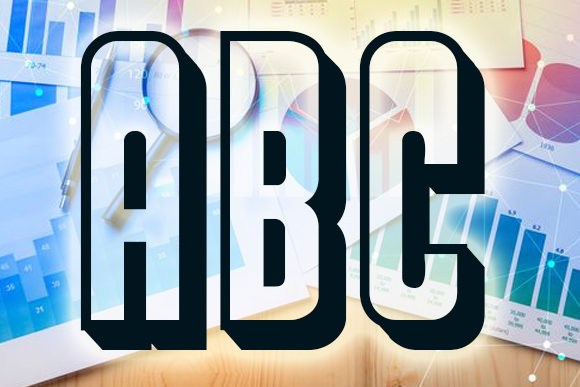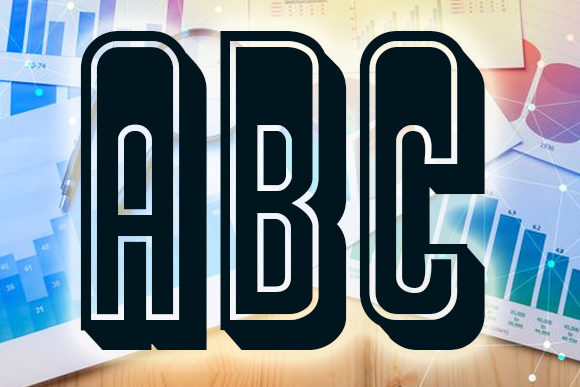
The Perfect Font for the Modern Entrepreneur
Remember that moment when you finally nailed the design for your new company logo? The rush of excitement, the sense of accomplishment, and the knowledge that your brand is now visually represented in the world. It’s a moment that every entrepreneur and designer dreams of, and it all starts with the right font.
Meet the Businessman Font, a stunning 3D font with a retro flair that’s sure to make your brand stand out. With its Regular and Light versions, you can choose the perfect look to match your company’s style. Whether you’re a seasoned designer or just starting out, the Businessman Font is a valuable addition to your toolkit.
What sets the Businessman Font apart is its unique blend of sophistication and playfulness, making it the perfect choice for any business looking to make a statement. With its versatility and wide range of applications, it’s no wonder designers are clamoring to get their hands on this amazing font.
Key Features of Businessman Font
- Font Size and Style: The font comes in multiple font sizes, including 12pt, 14pt, 18pt, and 24pt, and is available in regular, italic, bold, and bold italic styles.
- Resolution and DPI: The font is designed to be clear and readable at resolutions of up to 300 DPI (dots per inch), making it ideal for use in both print and digital applications.
- Unique Characteristics: The Businessman Font features a unique blend of classic and modern design elements, including clean lines, geometric shapes, and subtle texture, making it a versatile and eye-catching choice for business and professional applications.
- Font Weight and Opacity: The font is available in a range of font weights, from light to extra bold, allowing users to customize the look and feel of their text to suit their needs.
Businessman Font Review
Overall, I think the Businessman Font has a lot going for it ✨. The first thing that stands out is its classic and professional aesthetic, making it perfect for corporate and business-related projects. The font is clean and easy to read, with clear letterforms that convey a sense of authority and trust.
The font’s versatility is also a major plus ✨. It works well in a variety of settings, from print to digital, and can be easily paired with other fonts to create a cohesive look. Additionally, the font’s high x-height makes it suitable for body text, while its elegant proportions make it suitable for headlines.
- ⚠️ Limited expressiveness: The Businessman Font is a very formal and conservative font, which may not be suitable for projects that require a more playful or creative tone.
- ⚠️ Limited language support: The font may not have the same level of language support as other fonts, which could be a limitation for projects that require multilingual support.
- ⚠️ Limited style variations: The font has a relatively limited range of style variations, which may not be suitable for projects that require a lot of customization options.
Overall, I think the Businessman Font is a solid choice for business-related projects, but it may not be the best fit for every project. With its classic aesthetic and versatility, it’s a great option for projects that require a professional and trustworthy tone. However, its limitations in expressiveness, language support, and style variations may make it less suitable for projects that require a more creative or customized look.
Getting the Most Out of Businessman Font
To get the most out of Businessman Font, follow these tips:
- Use it for professional documents and presentations.
- Pair it with a clean and simple design to make it stand out.
Businessman Font is commonly used for:
- Business proposals and reports.
- Marketing materials and brochures.